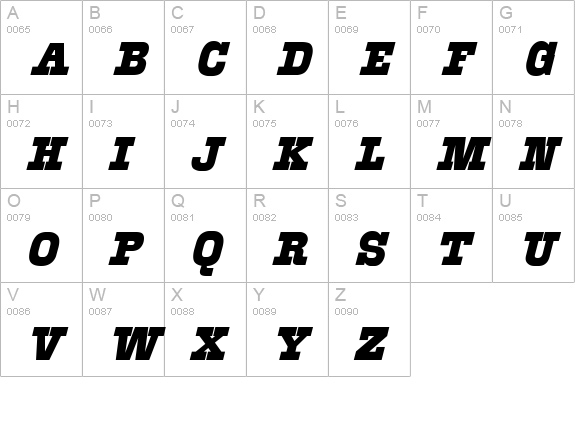
AkenatonFont Font Details
Introducing AkenatonFont, a stylish and modern typeface that will elevate your designs to new heights. This versatile font exudes elegance and sophistication, making it perfect for a wide range of projects. With its clean lines and unique letterforms, AkenatonFont is sure to make a lasting impression. The best part? AkenatonFont is completely free to download at FontsMarket.com! Yes, you read that right - this high-quality font is available at no cost, allowing you to create beautiful designs without breaking the bank. Whether you're working on a logo, website, or print materials, AkenatonFont has got you covered. Don't miss out on this amazing opportunity to enhance your design projects with AkenatonFont. Download it today and take your creations to the next level!